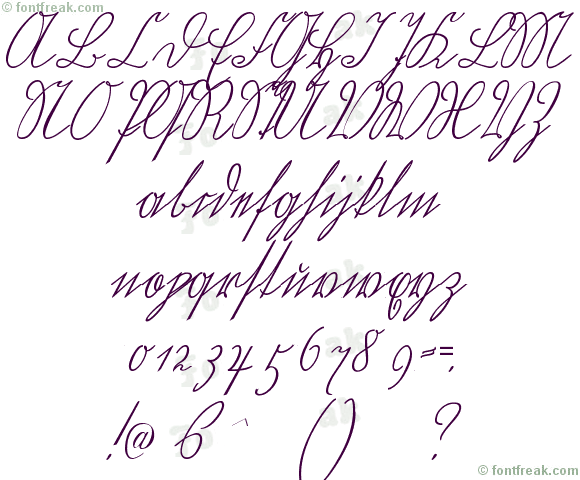
Wiegel Kurrent Medium
About Wiegel Kurrent Medium
Wiegel Kurrent Medium is a beautifully crafted script font designed by Peter Wiegel, embodying a classic, handwritten style that exudes elegance and sophistication. This font falls into the script category, characterized by its flowing strokes and cursive characteristics. With its medium stroke weight, it strikes a balance between readability and decorative flair, making it a versatile choice for various design needs. The visual characteristics of Wiegel Kurrent Medium include graceful curves and a slight contrast in thickness, lending it an organic feel that captures the essence of traditional calligraphy. The spacing between the letters is thoughtfully designed to enhance legibility while maintaining an artistic appearance.
This font is particularly well-suited for wedding invitations, where its romantic style can elevate the overall aesthetic. Additionally, it works wonderfully for greeting cards, offering a personal touch that resonates with the recipient. Small business owners may find it ideal for branding materials, such as logos or packaging, as it conveys a sense of warmth and approachability. Content creators can also leverage Wiegel Kurrent Medium in digital projects, including social media graphics or blogs, to add a unique flair to their content.
What sets Wiegel Kurrent Medium apart is its ability to blend tradition with modernity, making it a standout choice for anyone looking to infuse their projects with a touch of timeless charm. Whether for personal or professional use, this font promises to enhance any design with its distinctive character and elegance.